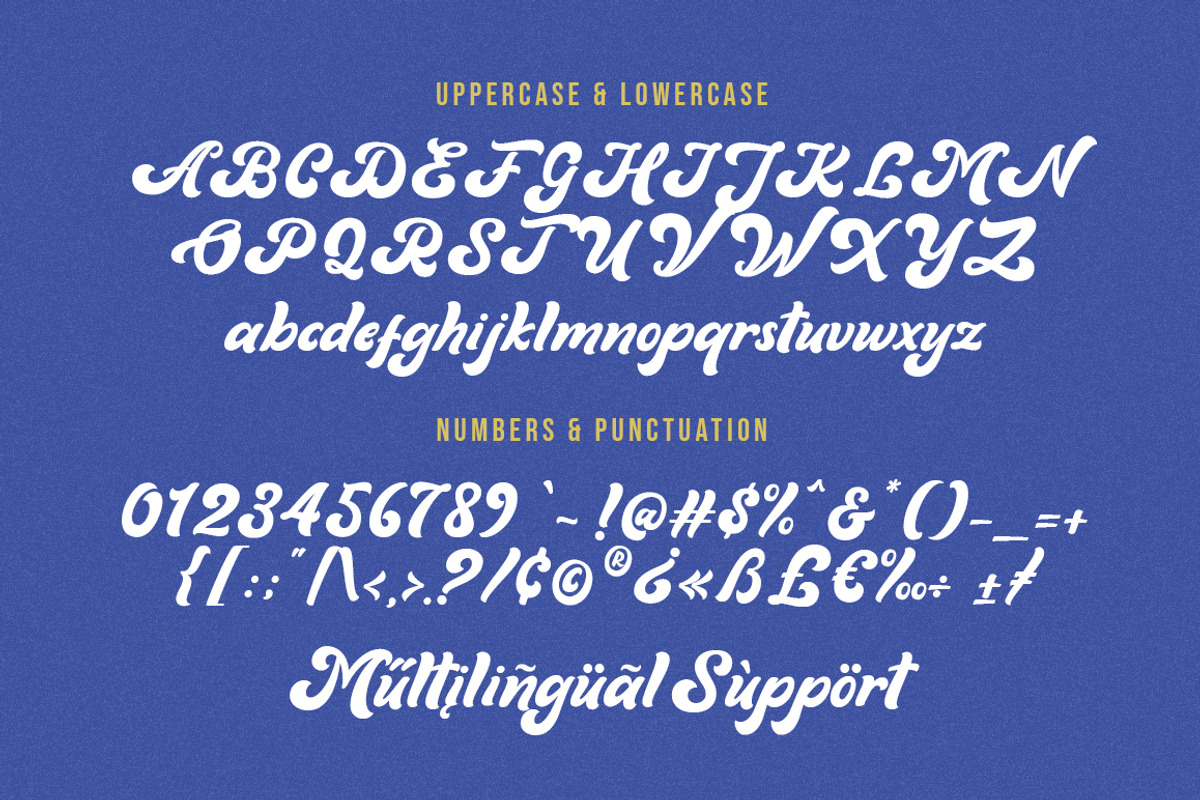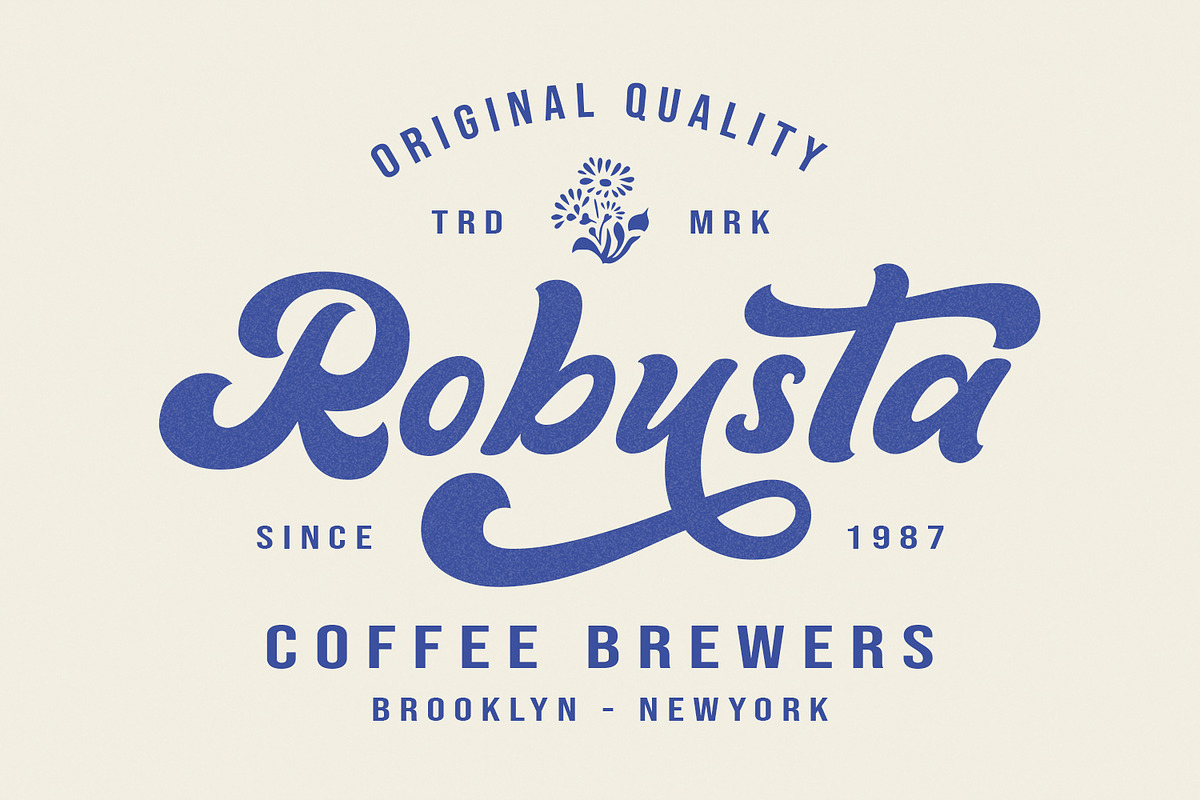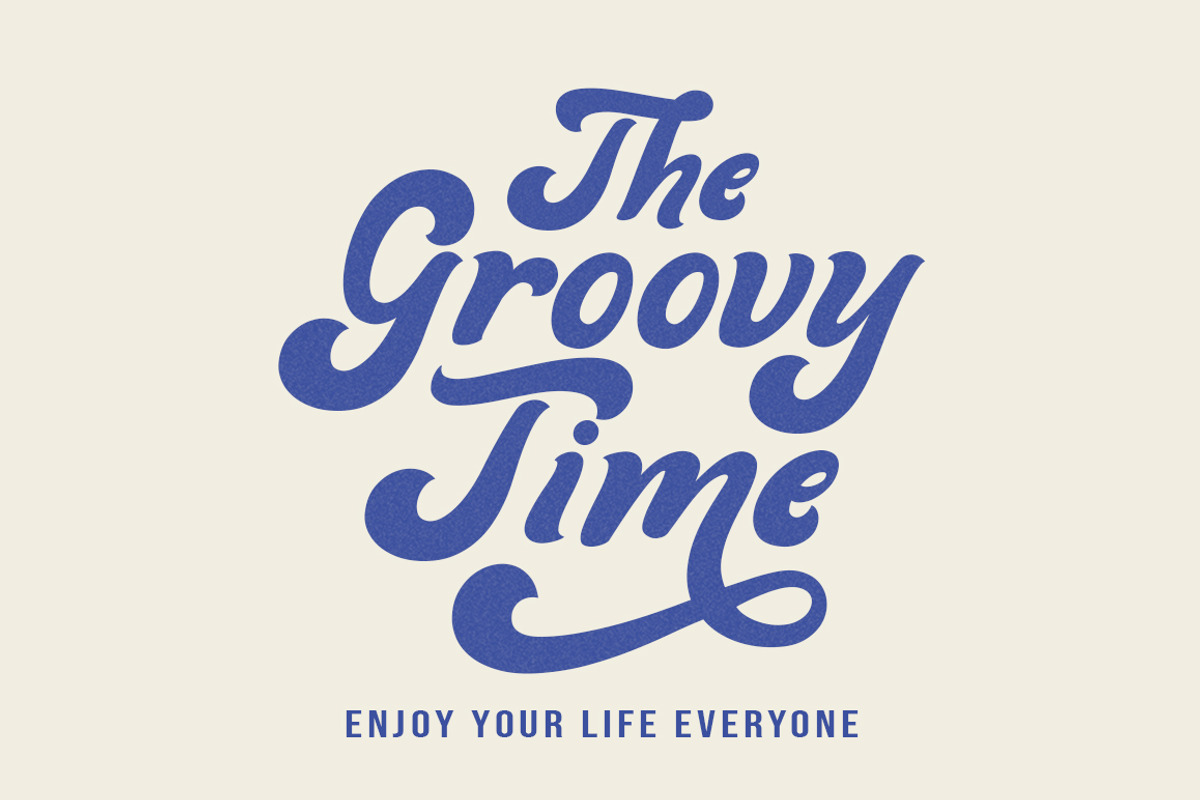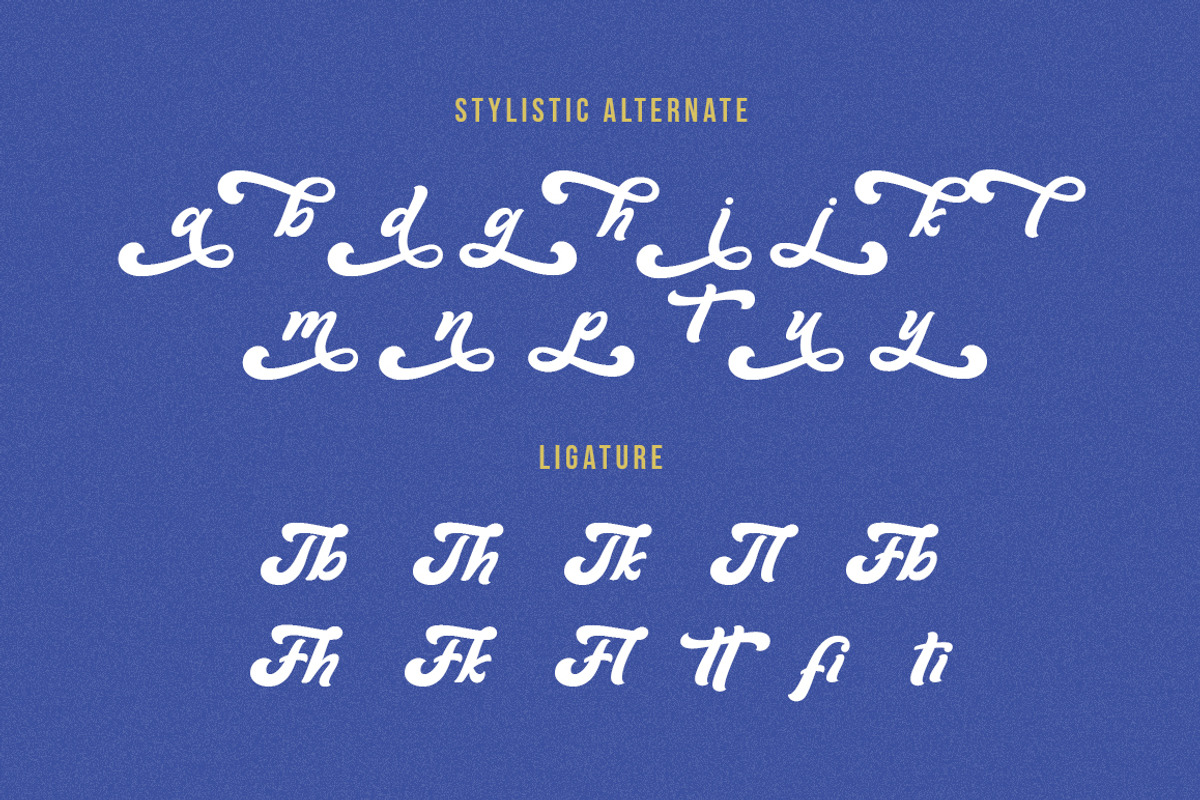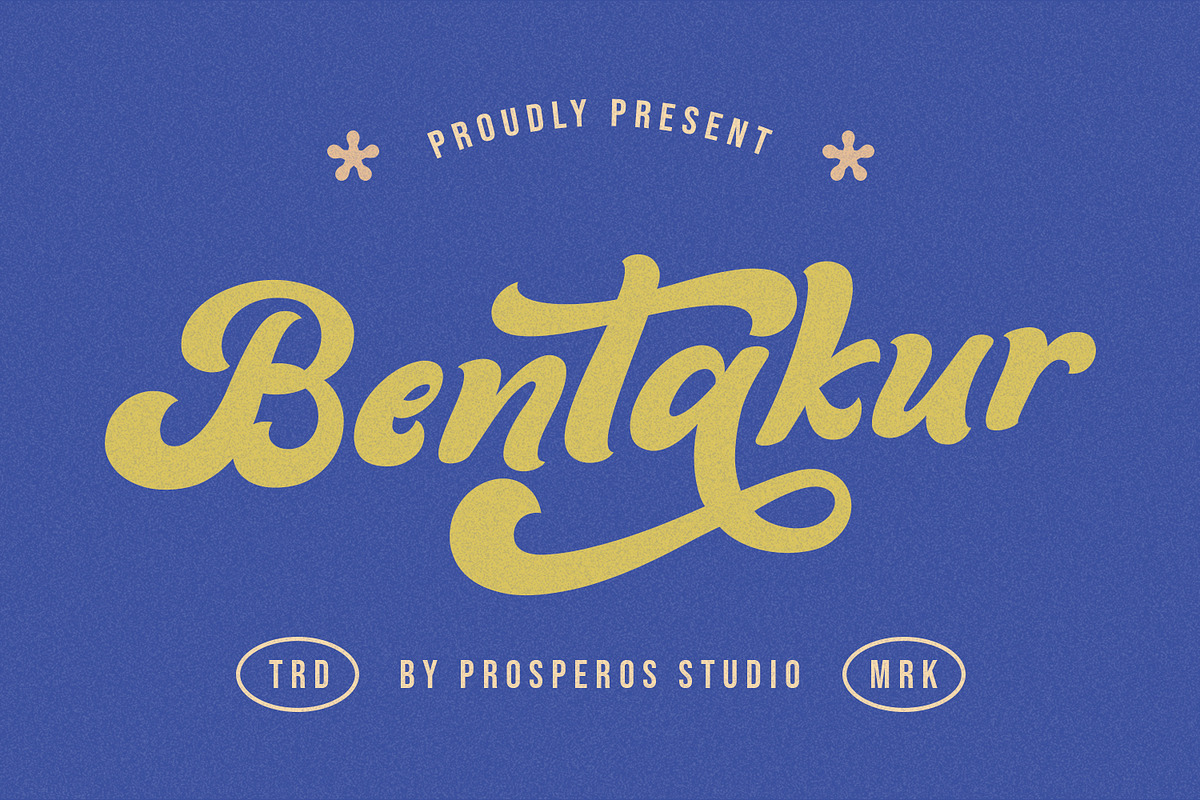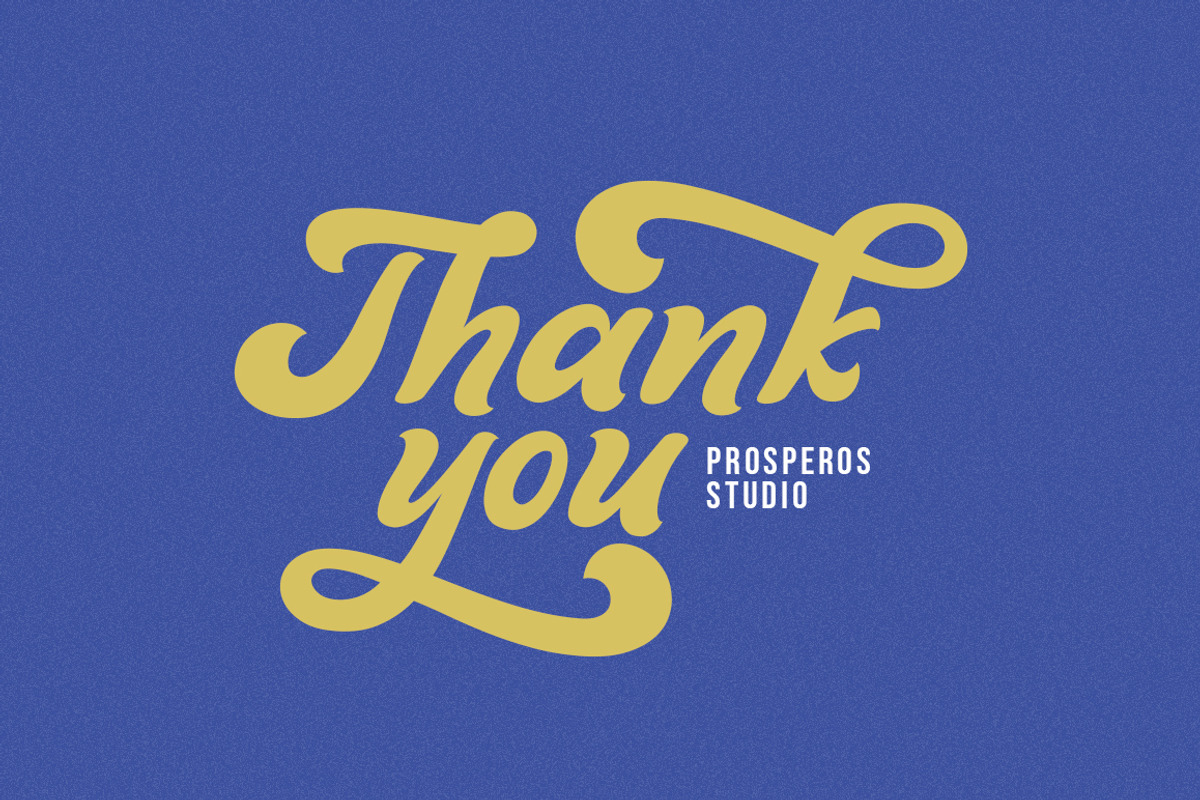
Bentakur - Retro Font
Bentakur - Retro Font is a font which will bring you back to 60s feel. It is great for your next creative project such as logotype, branding, promotional ads, quotes design, packaging, merchandise, poster, merchandise, social media and much more.
- Number, Symbols, and Punctuation
- Alternate and Ligature